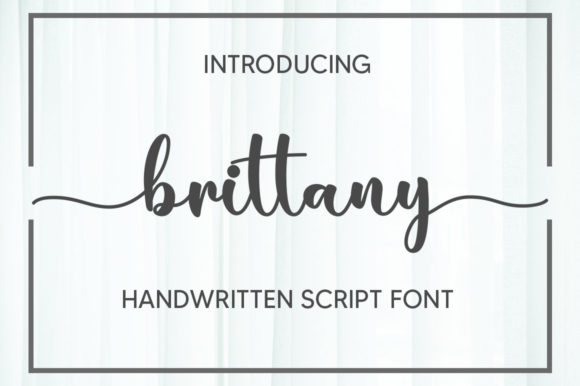
Welcome to the world of Brittany Font, an enchanting and timeless handwritten font, meticulously crafted to ignite your creativity. Immerse yourself in the beauty of script calligraphy and elevate your designs to new heights.
Brittany Font is the ultimate choice for designers seeking to make an impact. Its elegant and flowing strokes command attention, captivating audiences with their graceful charm. Whether you're a seasoned graphic artist or a budding creative enthusiast, Brittany Font is the perfect tool to transform your visions into reality.
Unlock the endless possibilities of Brittany Font, perfectly suited for crafting eye-catching logos that exude sophistication and personality. Imagine your brand name adorned in Brittany's graceful script, leaving an indelible mark on the minds of your customers. Create captivating social media graphics that pop off the screen, engaging your followers with visually stunning content.
Brittany Font's versatility shines in the realm of branding. Design business cards, letterheads, and brochures that radiate professionalism and style. Let Brittany Font elevate your marketing materials, transforming them into tangible expressions of your brand's essence. Unleash your creativity and craft brochures, flyers, and posters that leave a lasting impression.
Step into the world of quotes and typography with Brittany Font, the perfect companion for expressing emotions and sharing messages with the world. Create stunning quote graphics that resonate with your audience, inspiring and motivating them with words of wisdom. Let Brittany Font bring life to your words, turning them into visual masterpieces that capture hearts and minds.
Discover the ease and convenience of Brittany Font, meticulously crafted with PUA encoding. Access all of the font's glyphs and swashes with effortless simplicity, ensuring that your creative vision knows no bounds. Unleash your imagination and explore the limitless potential of Brittany Font, crafting designs that captivate and inspire.
Say goodbye to ordinary fonts and embrace the extraordinary with Brittany Font. Let your creativity soar and embark on a journey of visual storytelling, leaving an indelible mark on the world. Embrace the beauty of script calligraphy and elevate your designs to new heights. Brittany Font awaits you, ready to unlock the door to boundless creativity.